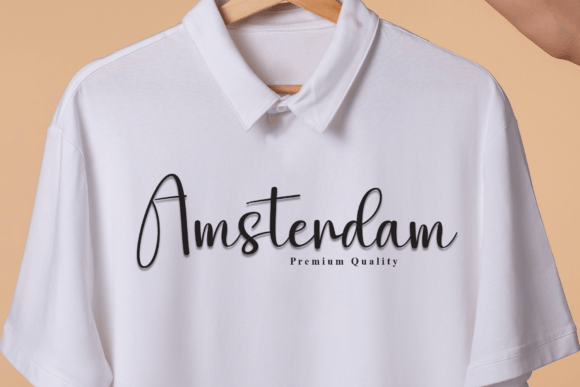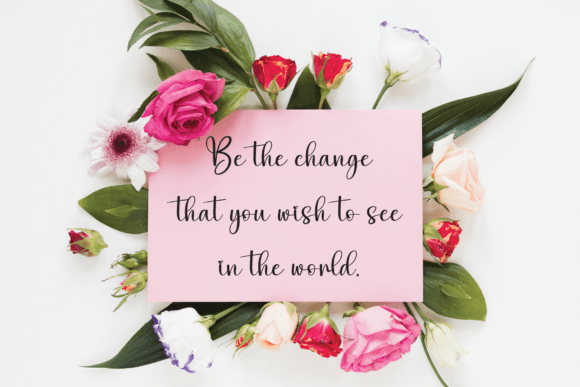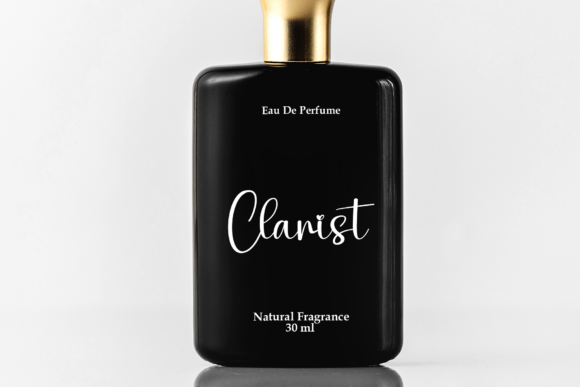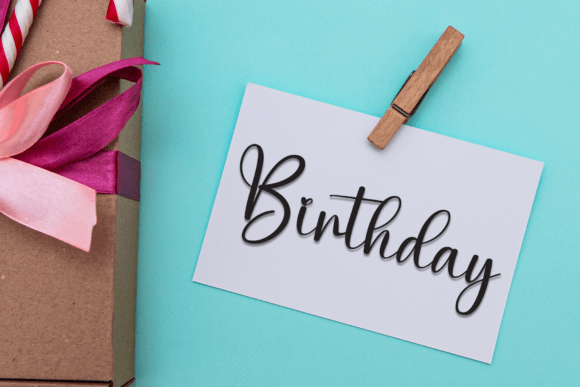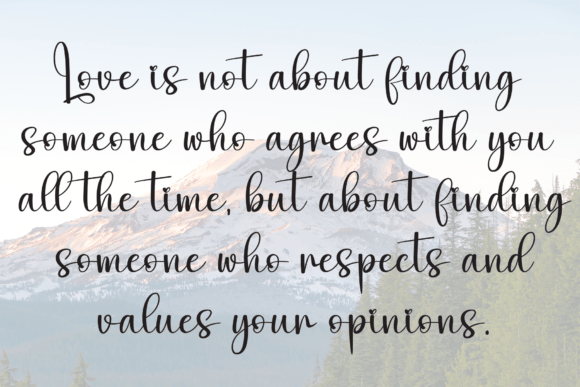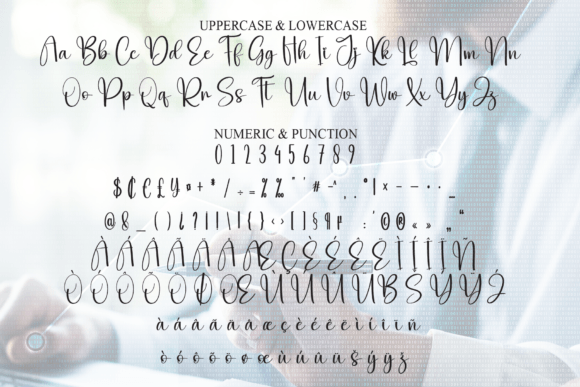
The Perfect Signature: Elevating Your Designs with Digital Signature Font
As a designer, there’s no thrill quite like the moment you create something truly special – a logo that pops, a brand identity that shines, or a digital invitation that leaves a lasting impression. But what sets these projects apart from the rest? For many creatives, the answer lies in the subtle yet powerful details that elevate a design from good to great.
Enter the Digital Signature Font, a sleek and sophisticated script font designed to exude professionalism and elegance. Its flowing strokes and modern charm make it the perfect choice for branding, logos, invitations, and digital designs. With subtle heart accents, this font adds a touch of warmth to any project, blending style with a personal feel. Whether you’re a seasoned designer or just starting out, the Digital Signature Font is a valuable addition to your toolkit, helping you create refined yet approachable typefaces that leave a lasting impression.
Digital Signature Font Key Features
- Unique Characteristics: Custom-designed to mimic handwritten signatures, providing a personal touch and authenticity to digital documents.
Digital Signature Font Review
Overall, I’m underwhelmed by the Digital Signature Font. While it has its moments, it’s not without its limitations.
- Unique and creative style that sets it apart from other fonts.
- Excellent for use in digital documents, presentations, and emails where a touch of personality is desired.
- Supports a wide range of languages, making it a great option for international use.
- Easy to read, even at smaller font sizes.
- Limited support for custom styles and colors, which can make it feel restrictive.
- Not ideal for use in formal or professional settings, as it may come across as too casual.
- No clear guidelines for usage, which can make it difficult to ensure consistency across different designs.
- Some users may find the font too playful or distracting, which can detract from the overall message.
Overall, I think the Digital Signature Font is a decent option for casual use, but it falls short in terms of versatility and professionalism. With a bit more development and refinement, it could be a top contender in the font market.
Getting the Most Out of Your Digital Signature Font
Here are some tips to get the most out of your digital signature font:
- Use a clear and legible font.
- Adjust the font size to ensure it is easy to read.
- Use a consistent color scheme.
- Experiment with different font styles and effects.
Digital signature fonts are commonly used in:
- Signing documents electronically.
- Creating digital signatures for contracts and agreements.
- Adding a personal touch to documents and presentations.
- Choose a bold and unique Digital Signature Font that stands out.
- Use a bright and contrasting color to make the font pop.
- Combine the font with shapes, like circles or squares, to create a geometric design.
- Use a subtle texture in the background to add depth to the design.
- Experiment with different font sizes and styles to create a visually appealing composition.
How do I choose the right Digital Signature Font for my needs?
When choosing a digital signature font, consider the following factors: security, compliance, and aesthetics. Look for fonts that are designed with security in mind, meet industry standards for compliance, and provide a visually appealing signature that meets your brand’s requirements. You may also want to consider factors such as font size, style, and customization options.